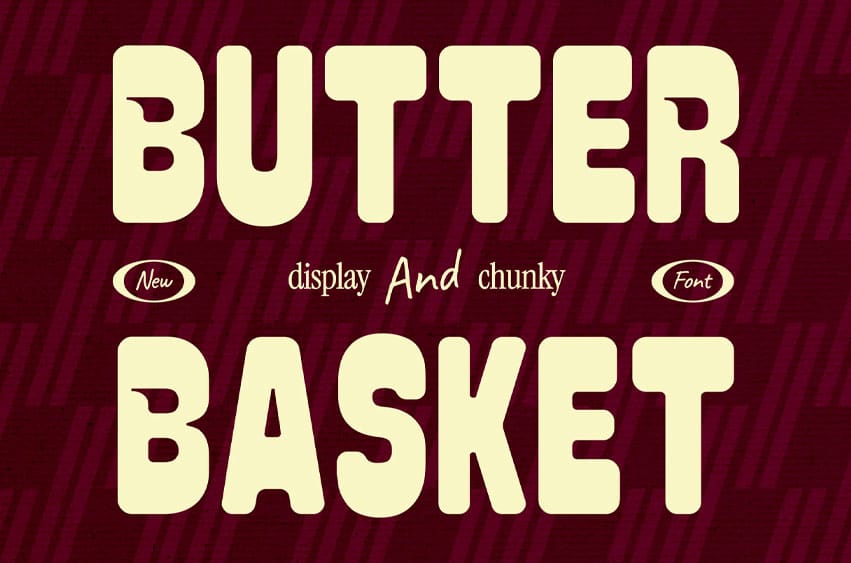
Butter Basket Font is a playful display font featuring chunky letterforms, soft curves, and charming retro personality. Perfect for food packaging, café branding, posters, logos, merchandise, headlines, social media, children’s designs, and editorial projects.
Its distinctive handmade character and multilingual support bring warmth, friendliness, and memorable style to creative designs worldwide.